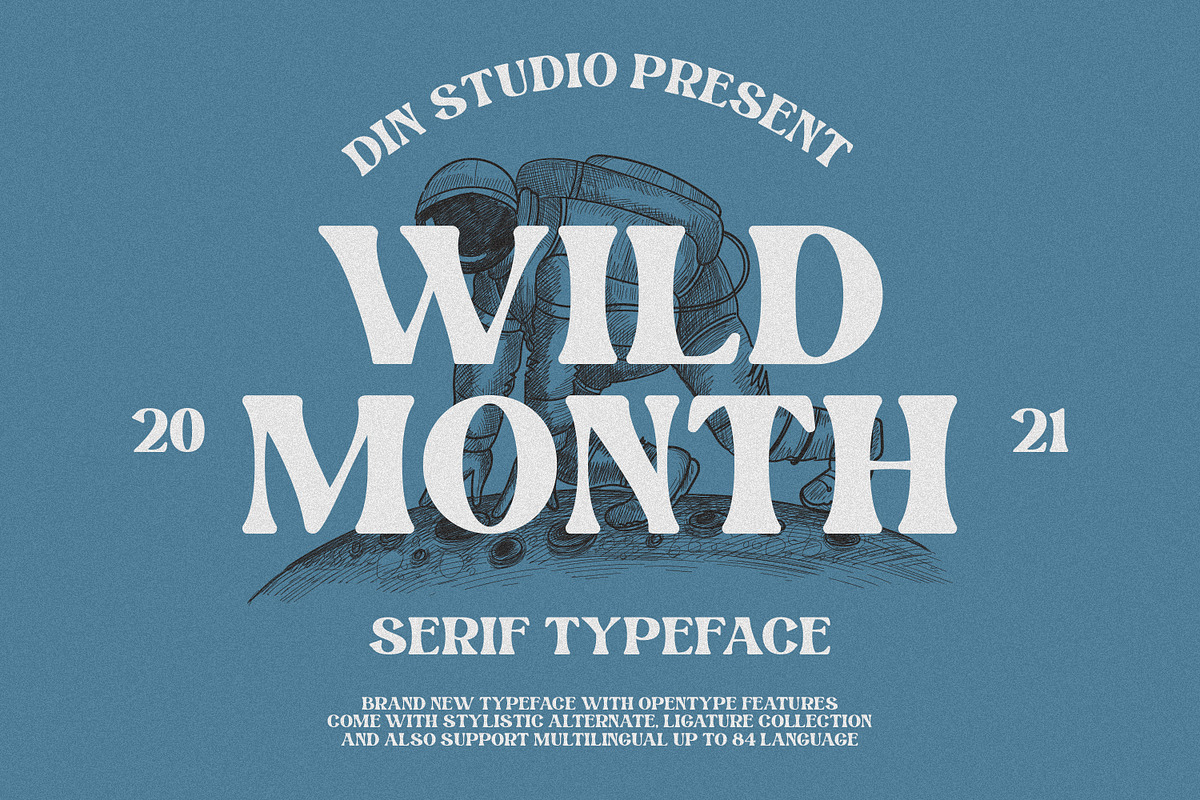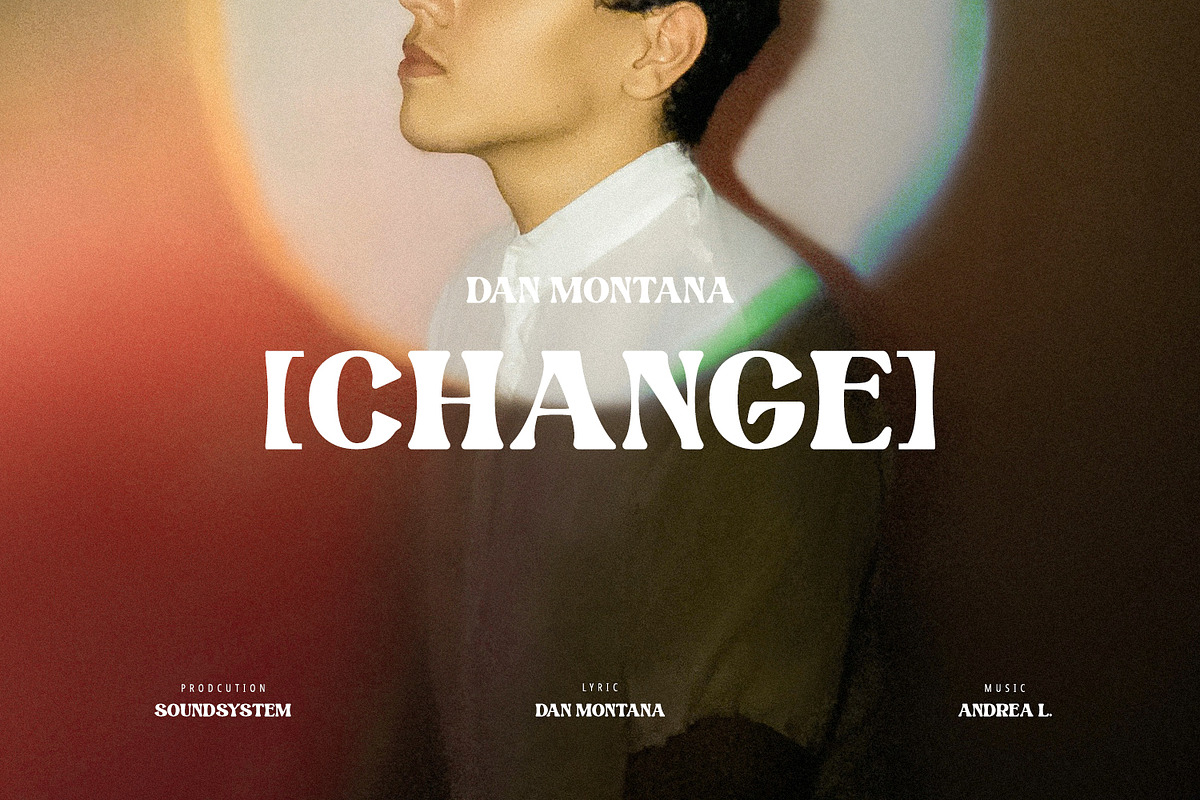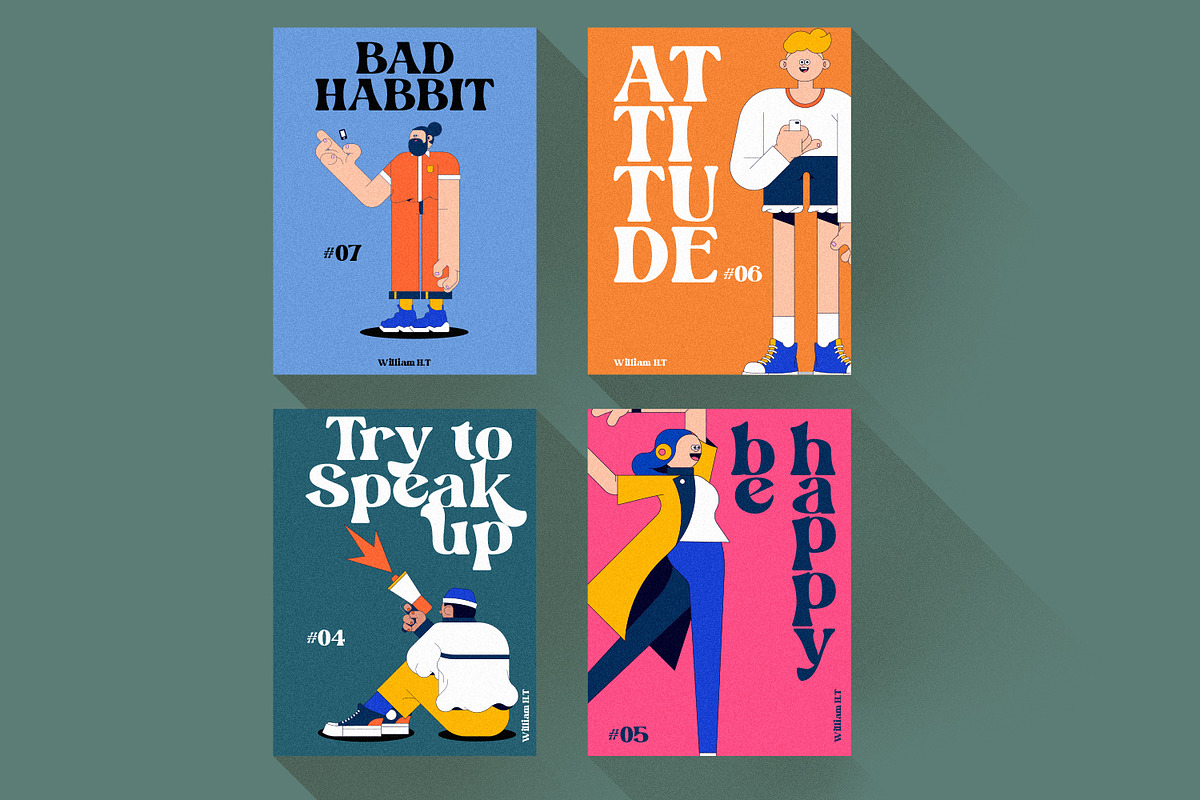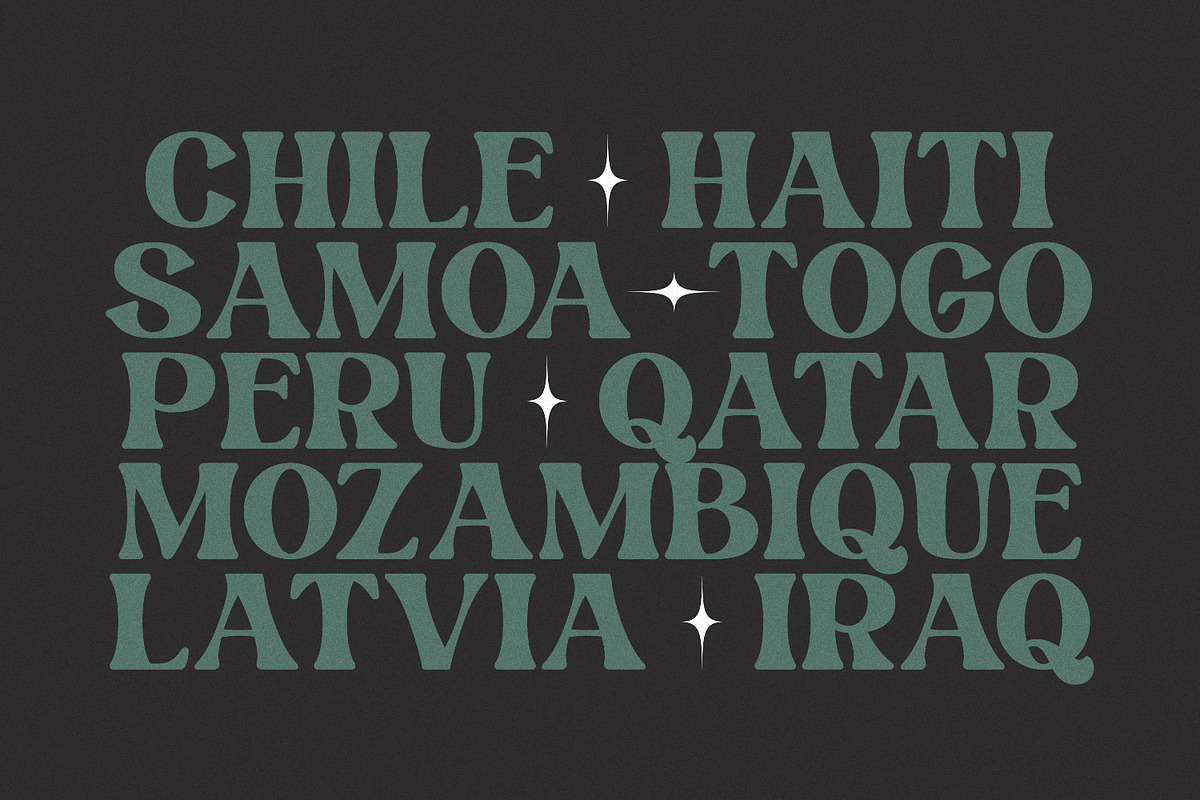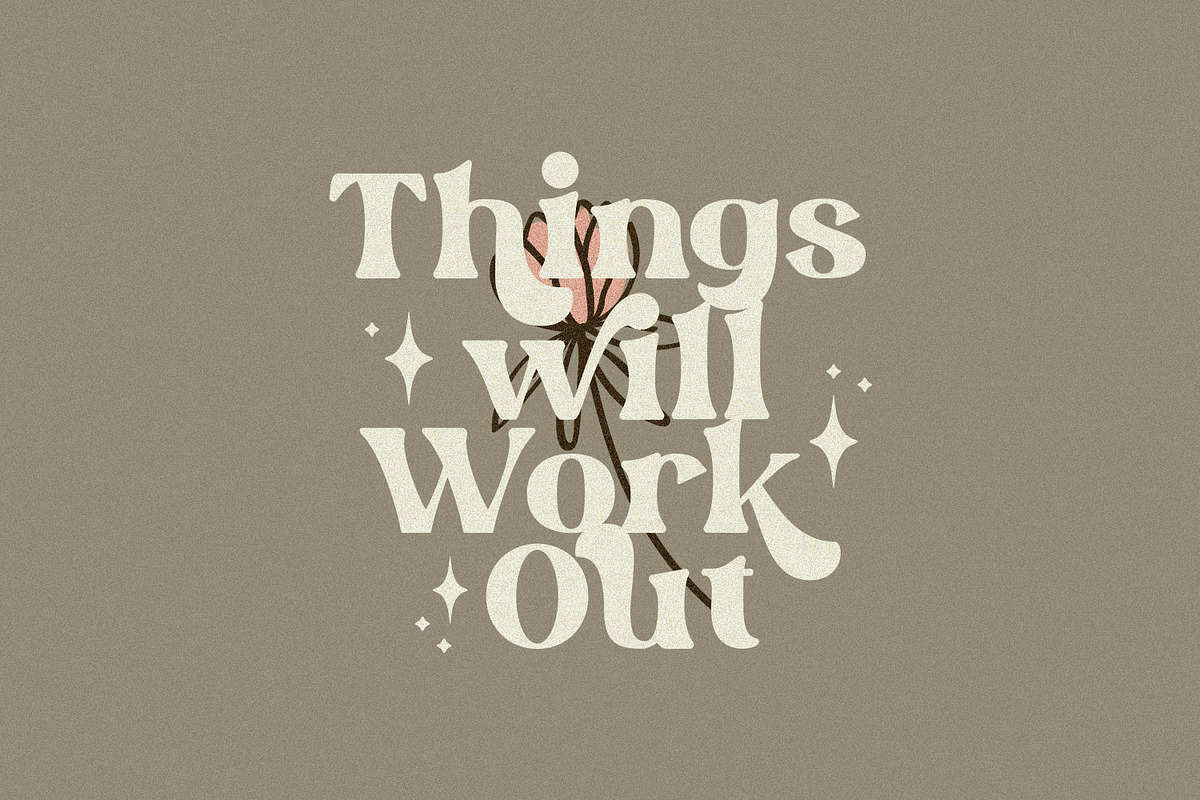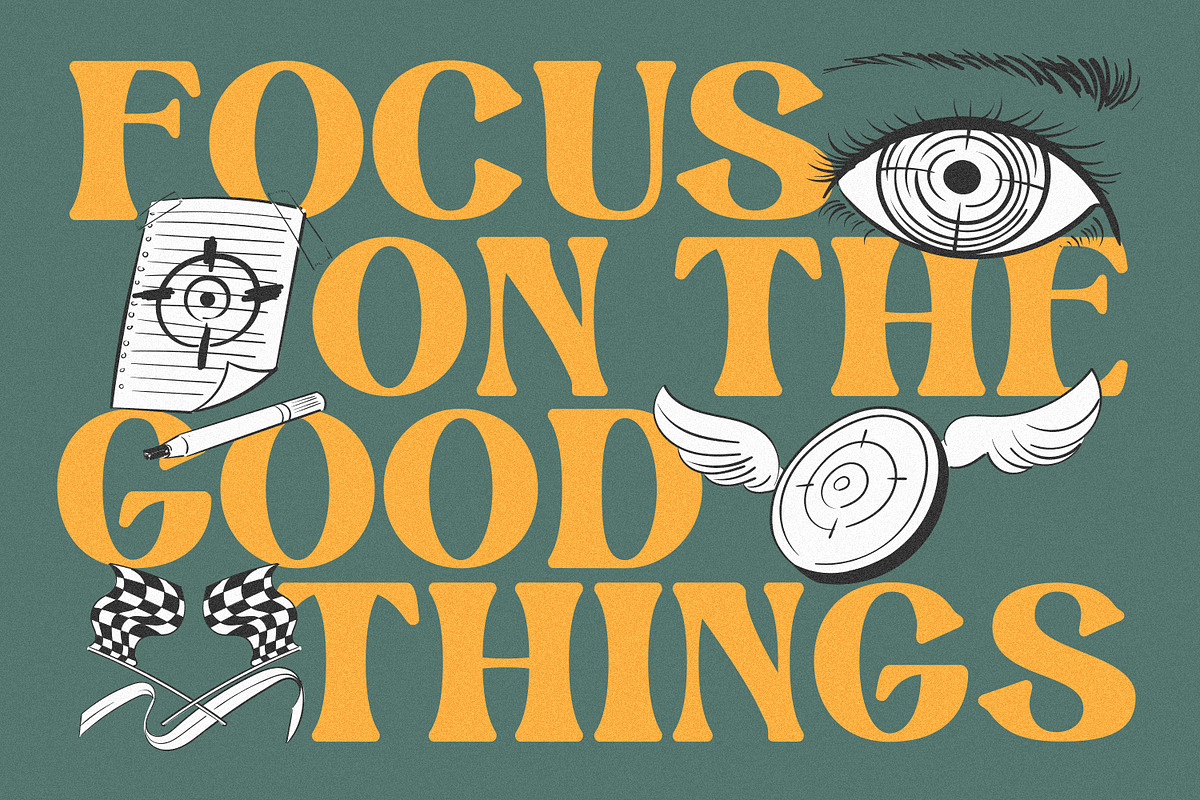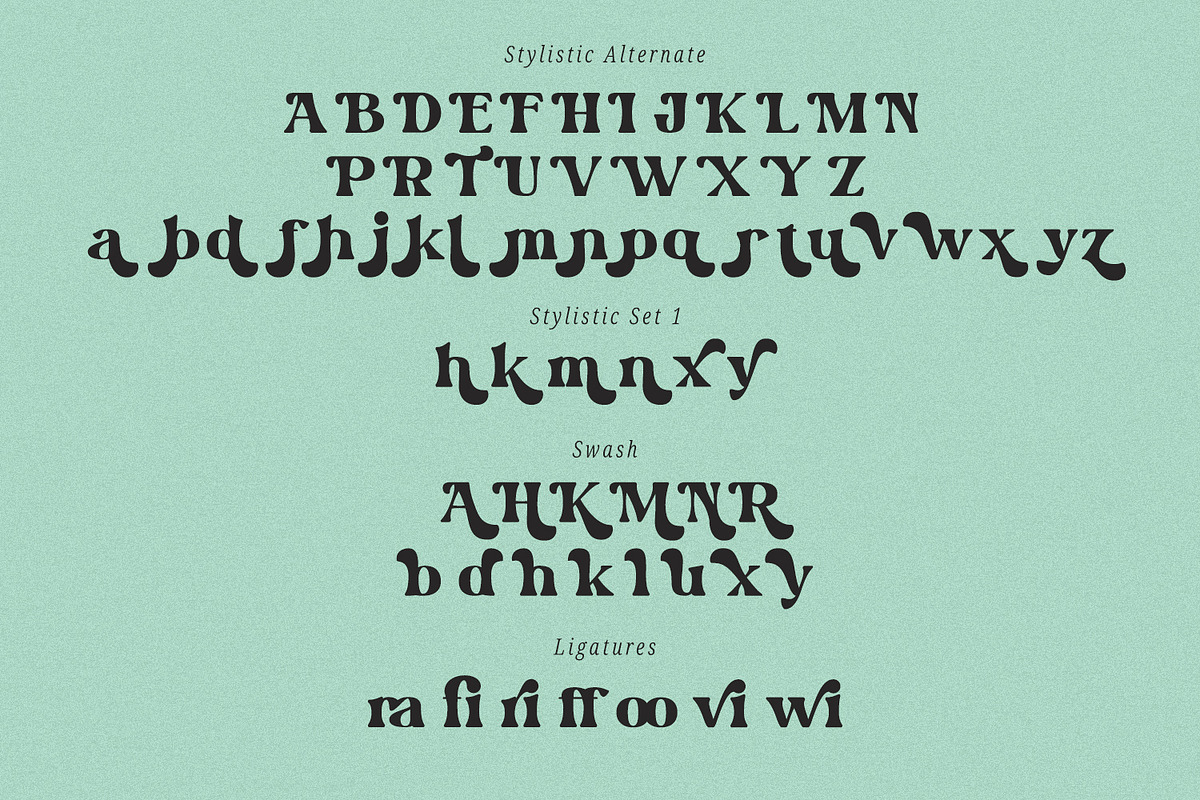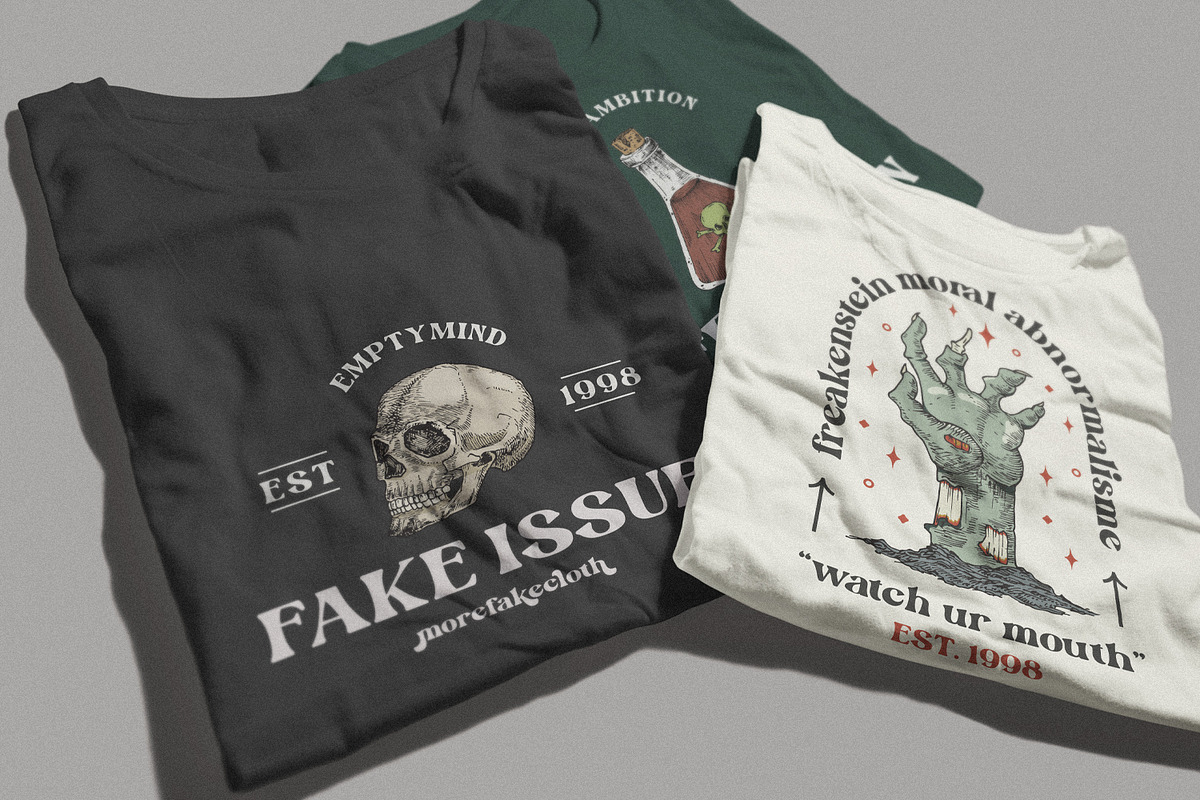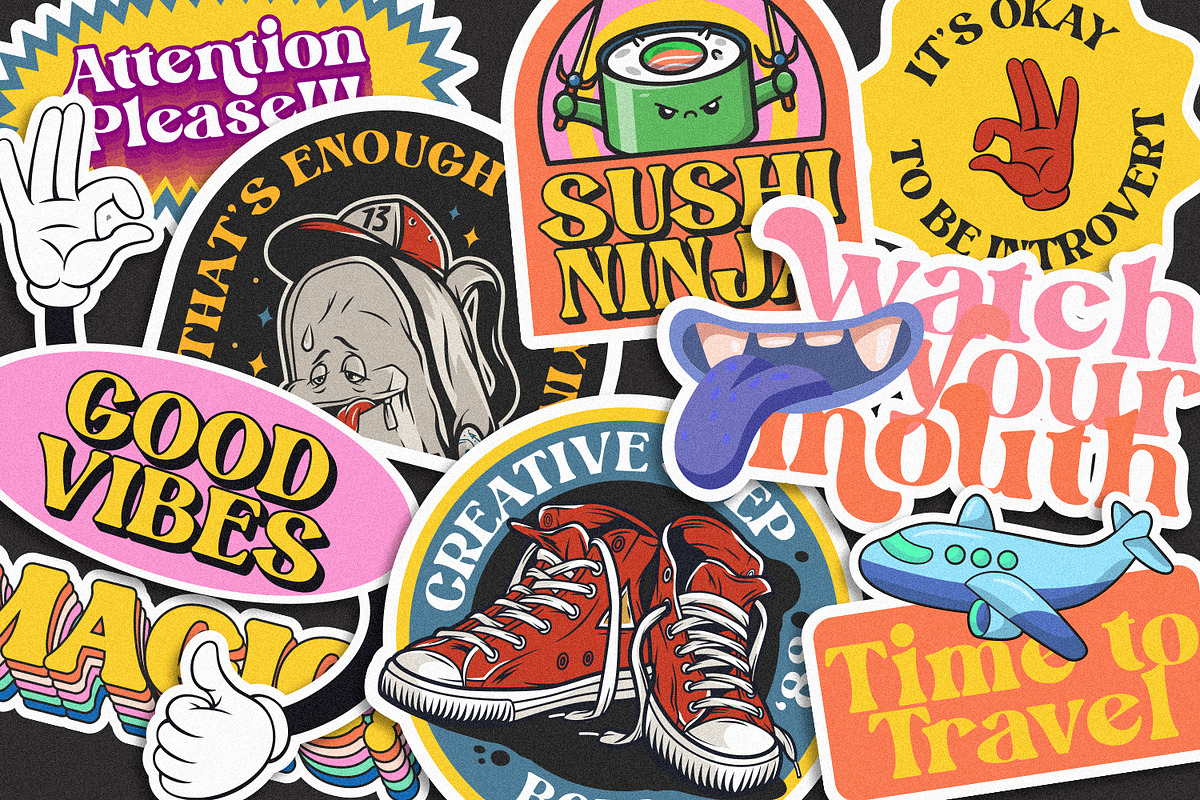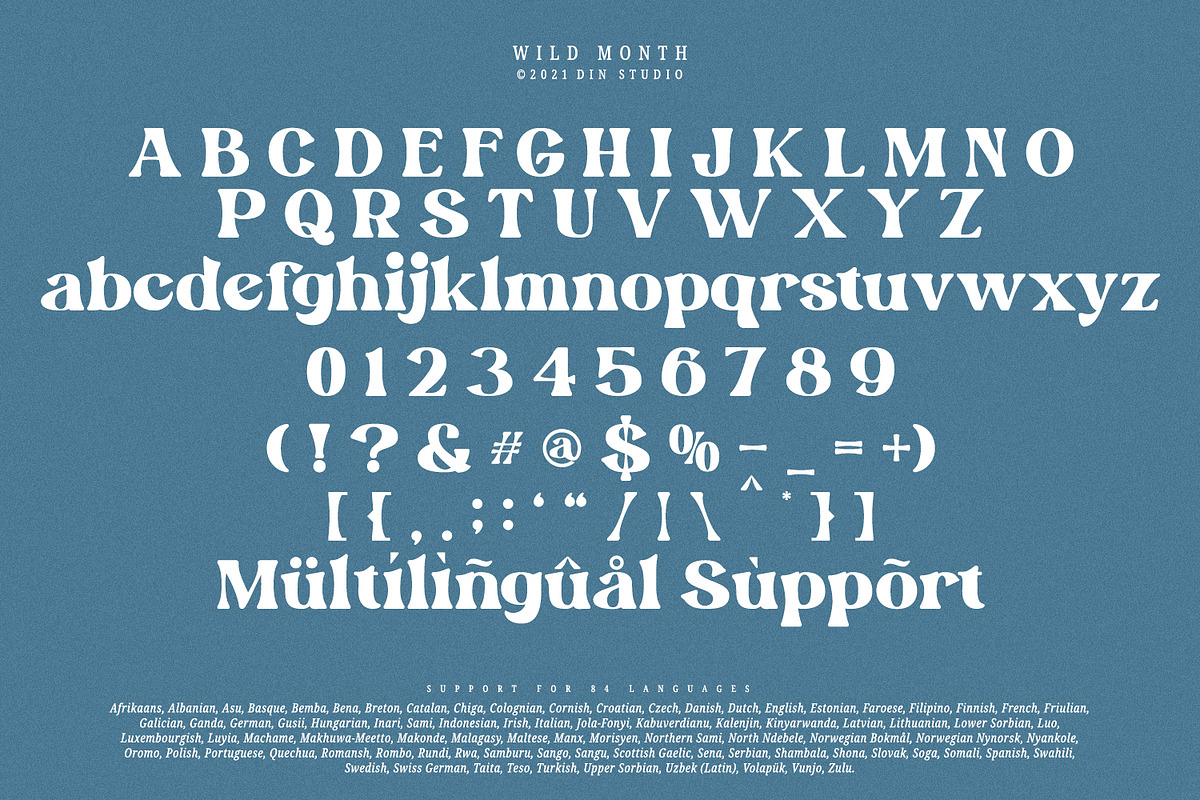
Wild Month
Hi, Everyone! Are you looking for a fabulous, stylish, modern, and adventurous font to make your branding bold? If so, we’ve got what you want. Let’s welcome the Wild Month, serif font.
It is a serif typeface that is made from the uppercase and lowercase letters. It is an excellent choice to add the right amount of modernity. This artistic typeface looks very interesting for loads of different projects and promotions. It is a great all-in-one package for your logos, book covers, posters, t-shirts, brandings, and advertisement needs.
Our font always includes Multilingual Support to make your branding reach a global audience.
- Stylistic Set
Wild Month fits best for any design projects, such as posters, banners, logos, book covers, album covers, quotes, invitations, greeting cards, name cards, headings, printed products, merchandise, social media, etc. Find out more ways to use this font by taking a look at the font preview.